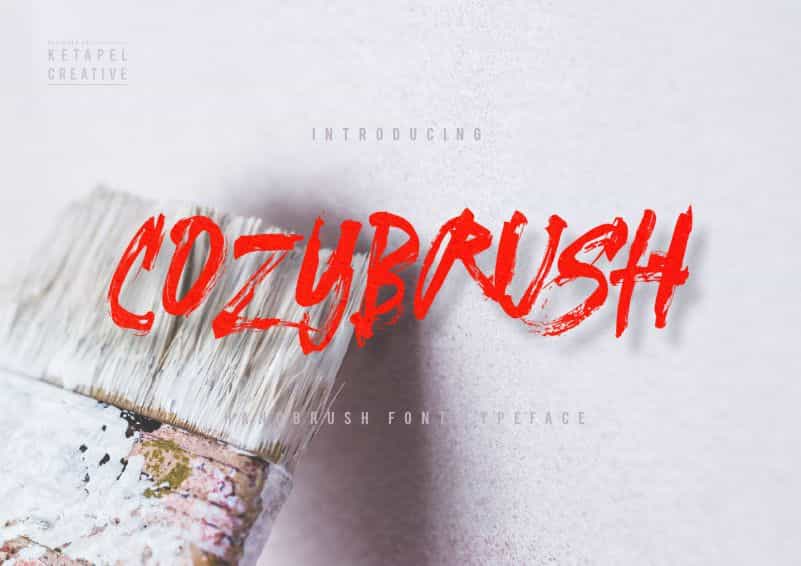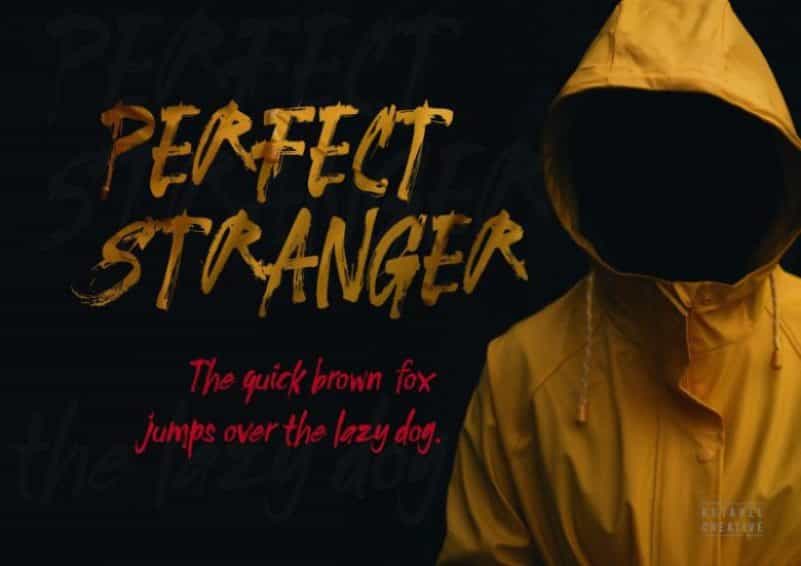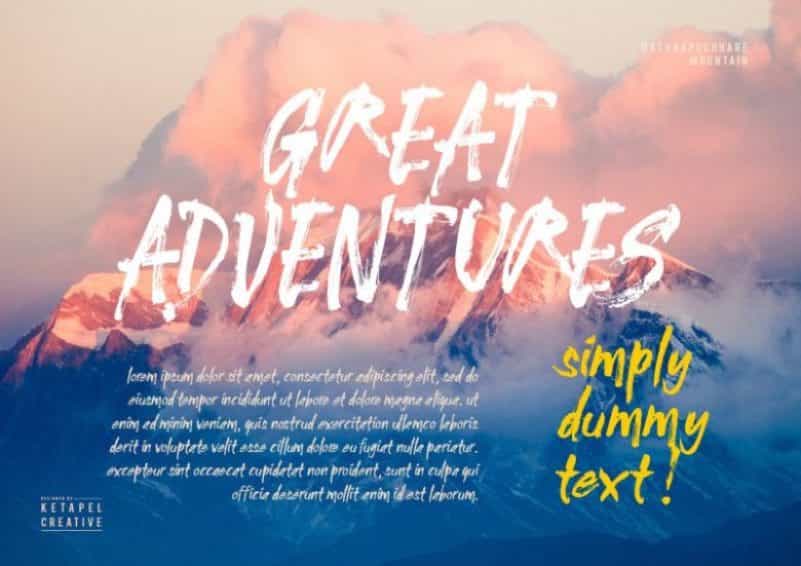
Cozybrush is a tough and strong script font with an individual character. Be touched by its real and raw vigor! Emotions, sharp and rough style, extra quick strokes, the natural movement scratch are all made by hand in a punchy dry marker display.